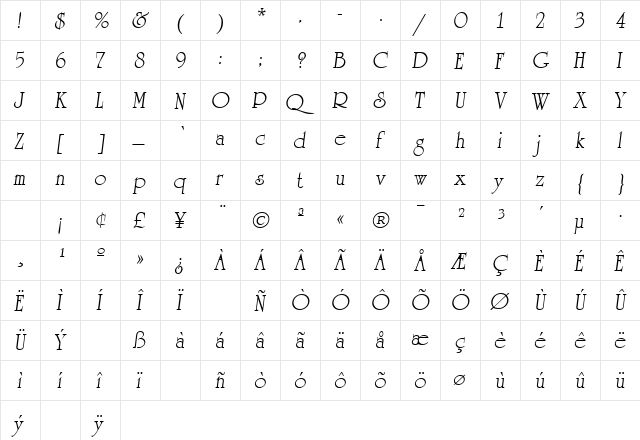
Office Oblique
Design Context for Office Typeface
Office takes a measured approach to typography — its balanced proportions and neutral character make it a reliable workhorse for both digital and print work. The dynamic lean of this cut emphasises speed and emphasis in any layout.
Pro Tip: Try Office for annotation and caption copy alongside an upright companion — the contrast in angle creates a dynamic but ordered typographic system.